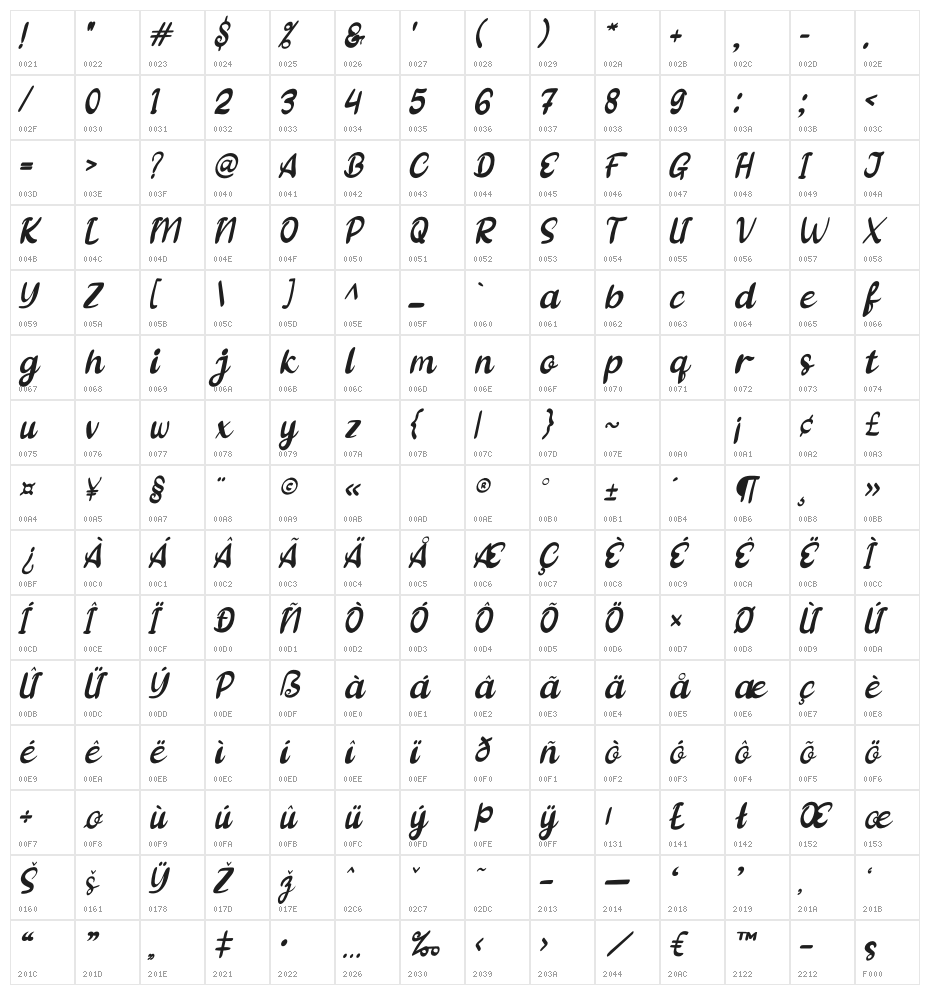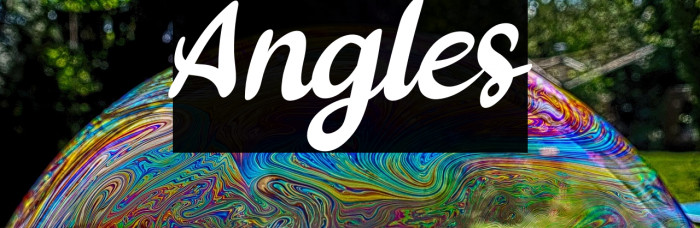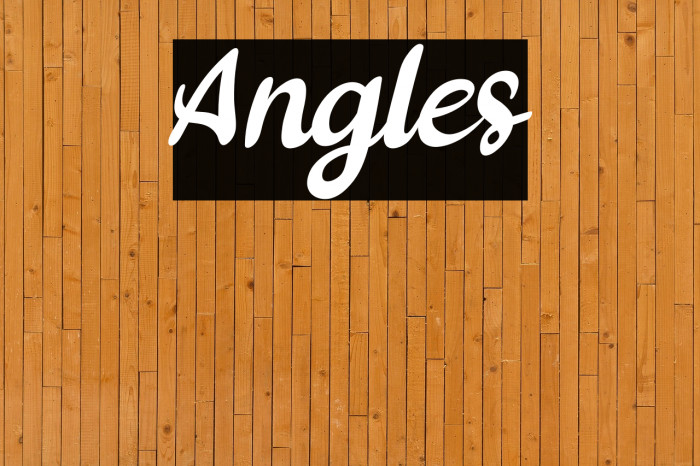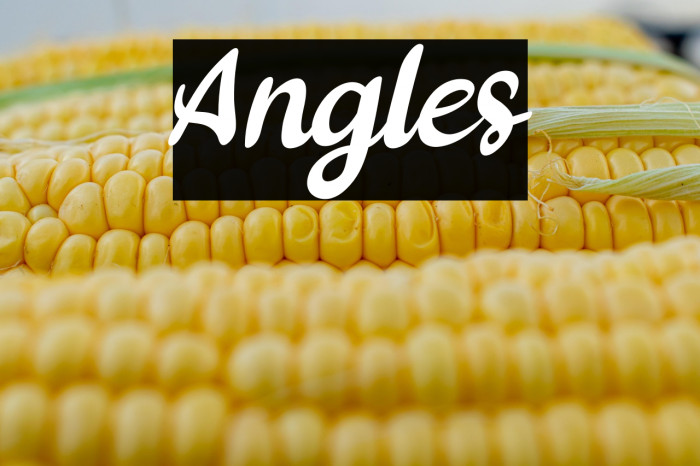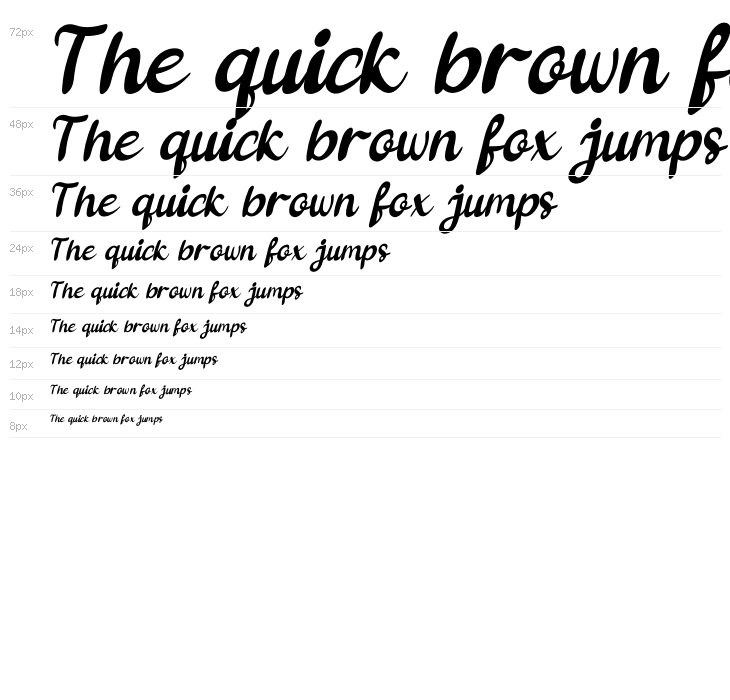
Angles Font
Angles Description
This font features a dynamic and flowing script style with a bold presence. Each character is crafted with a sense of movement, giving it a lively and energetic feel. The uppercase letters are slightly more angular, while the lowercase letters maintain a consistent roundness, adding to the overall fluidity. The numbers and special characters are designed to match the script's playful yet sophisticated aesthetic. This font is ideal for projects that require a personal touch or a sense of elegance and flair.
| Use Case | Logos, Headlines, Invitations |
| Proposed Projects | Ideal for wedding invitations, branding, greeting cards, and elegant packaging designs. |